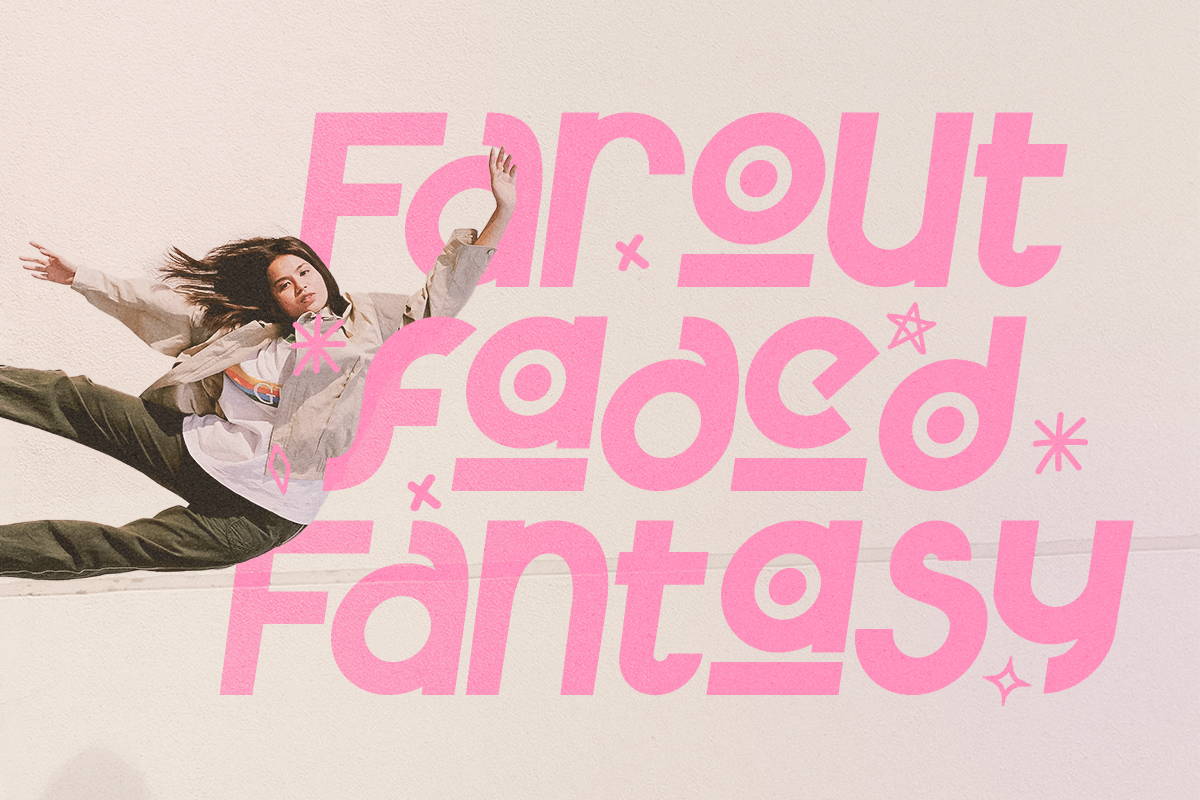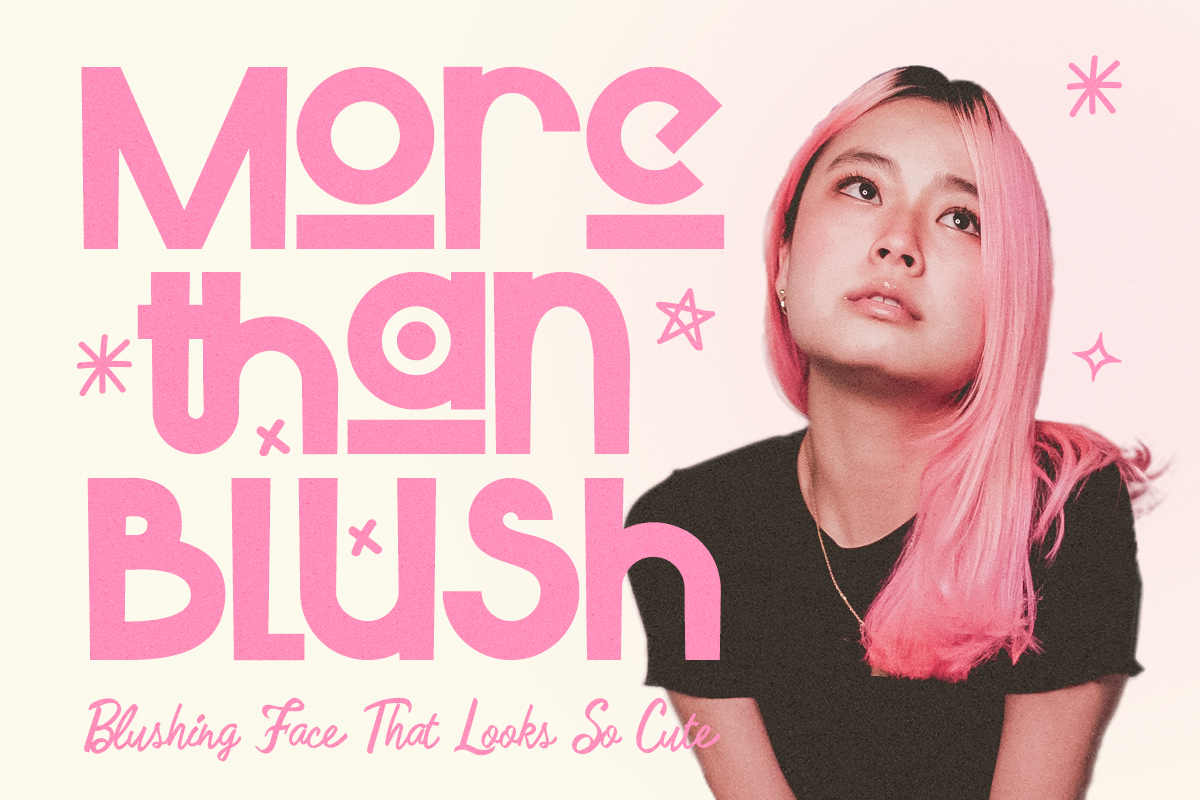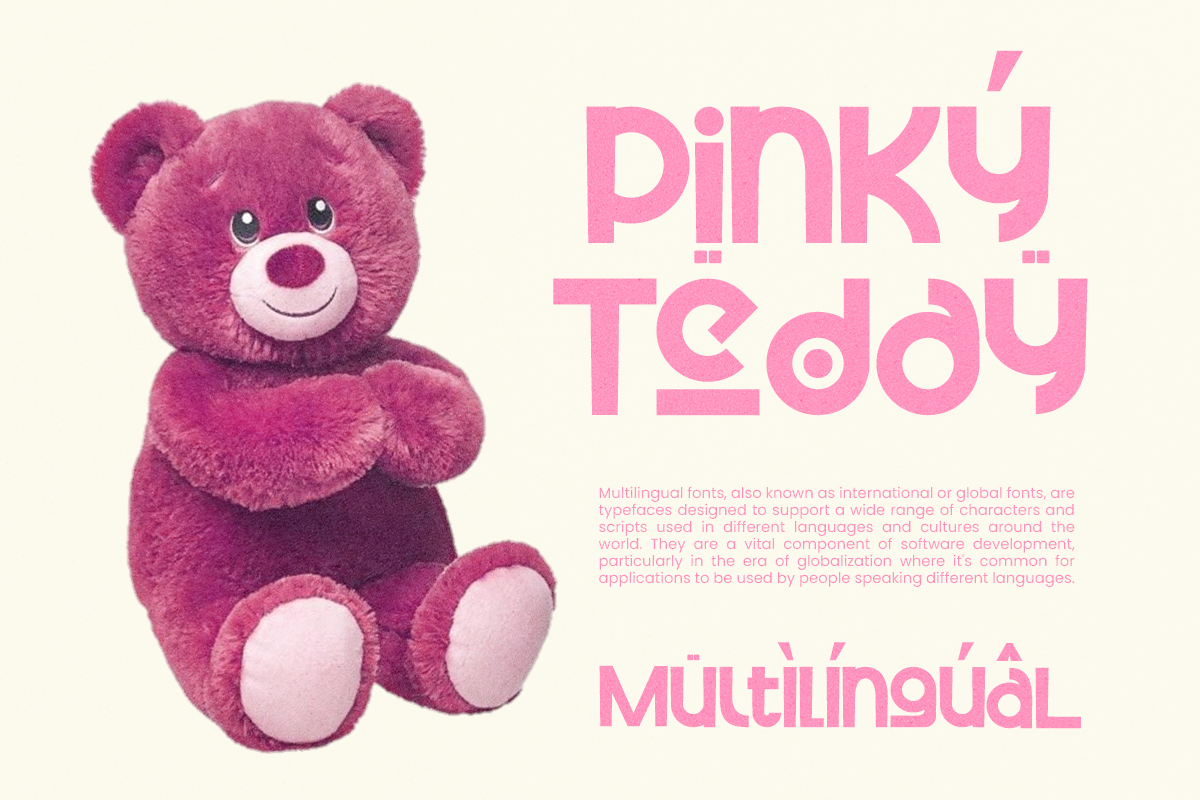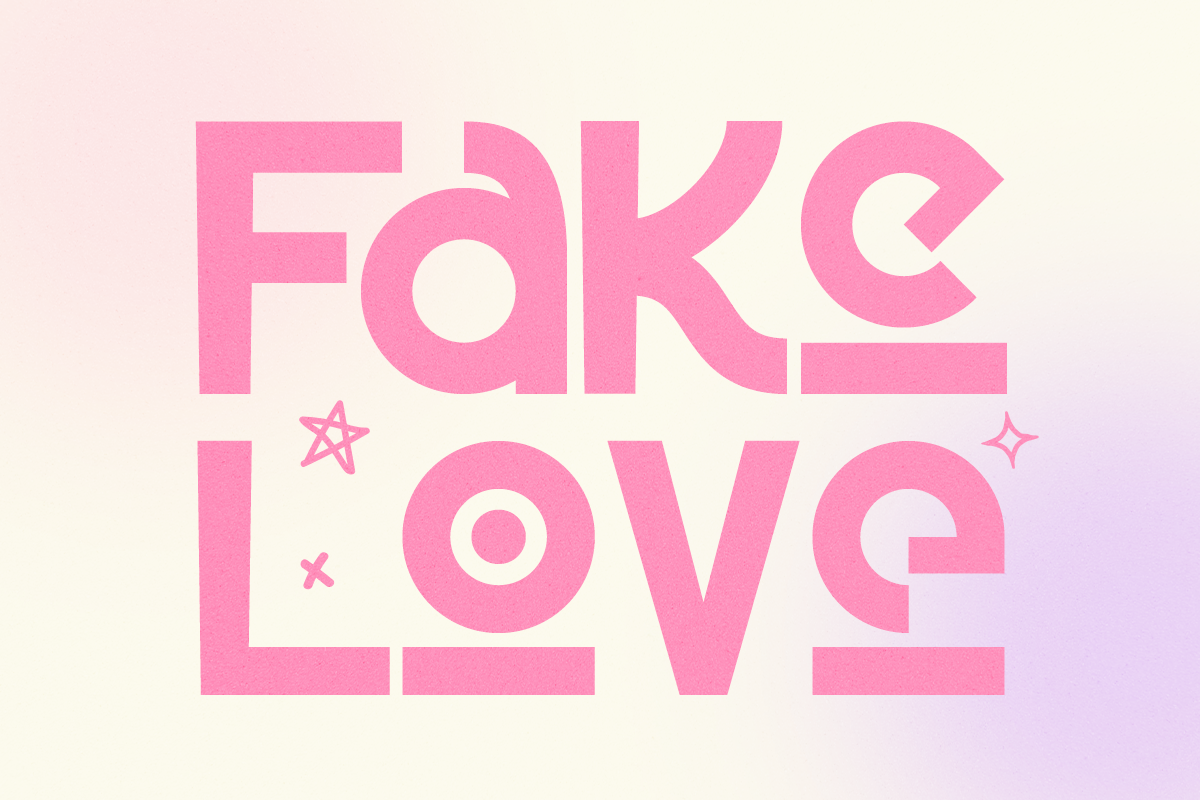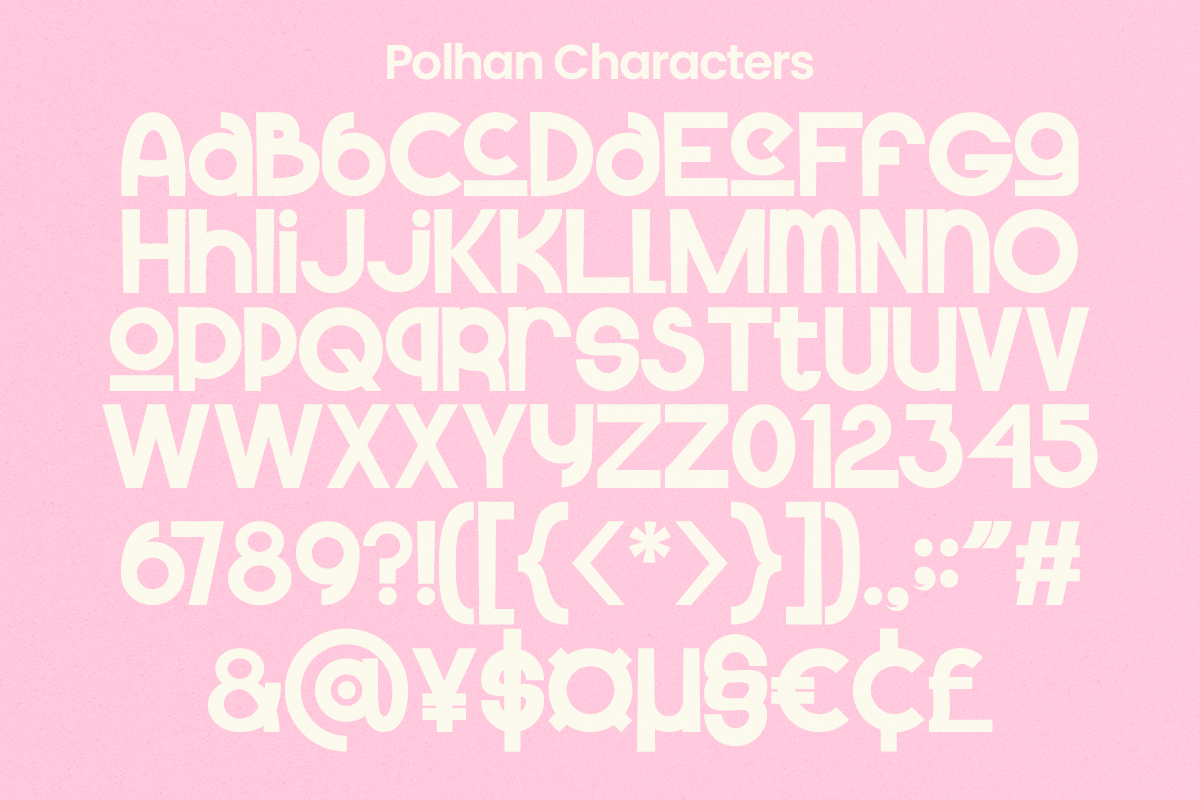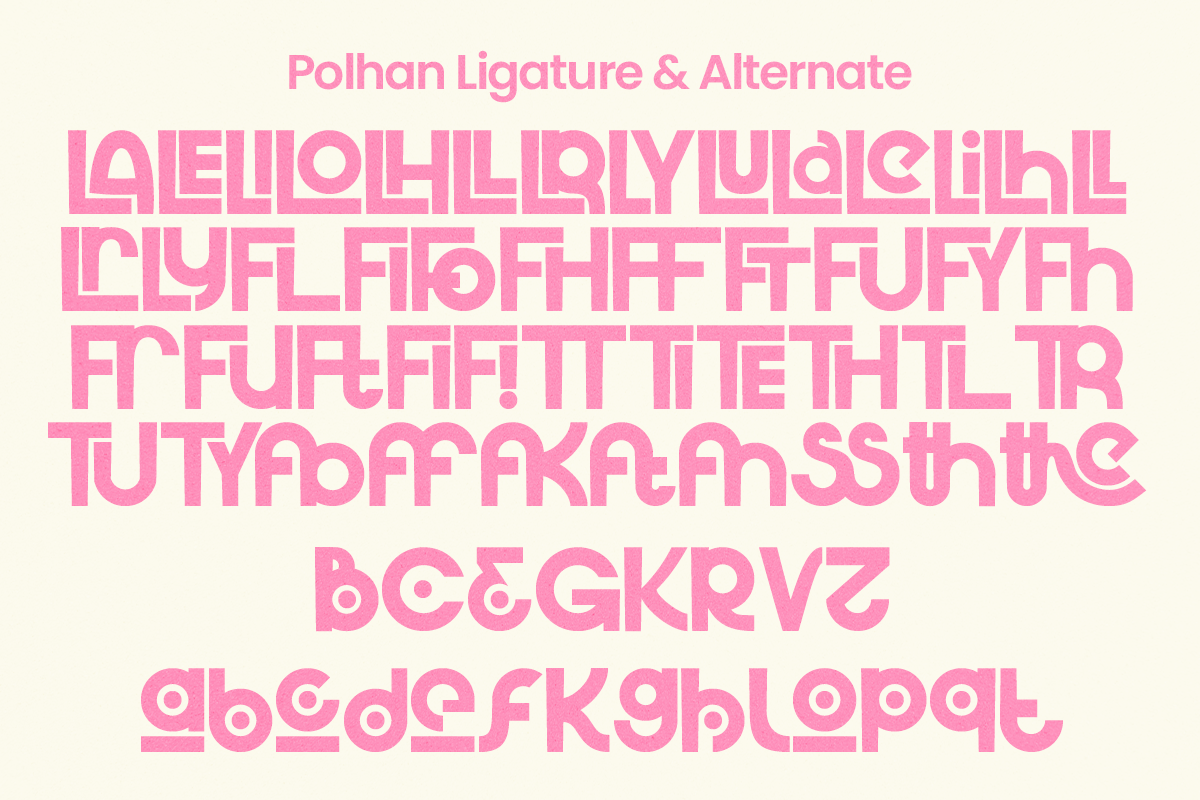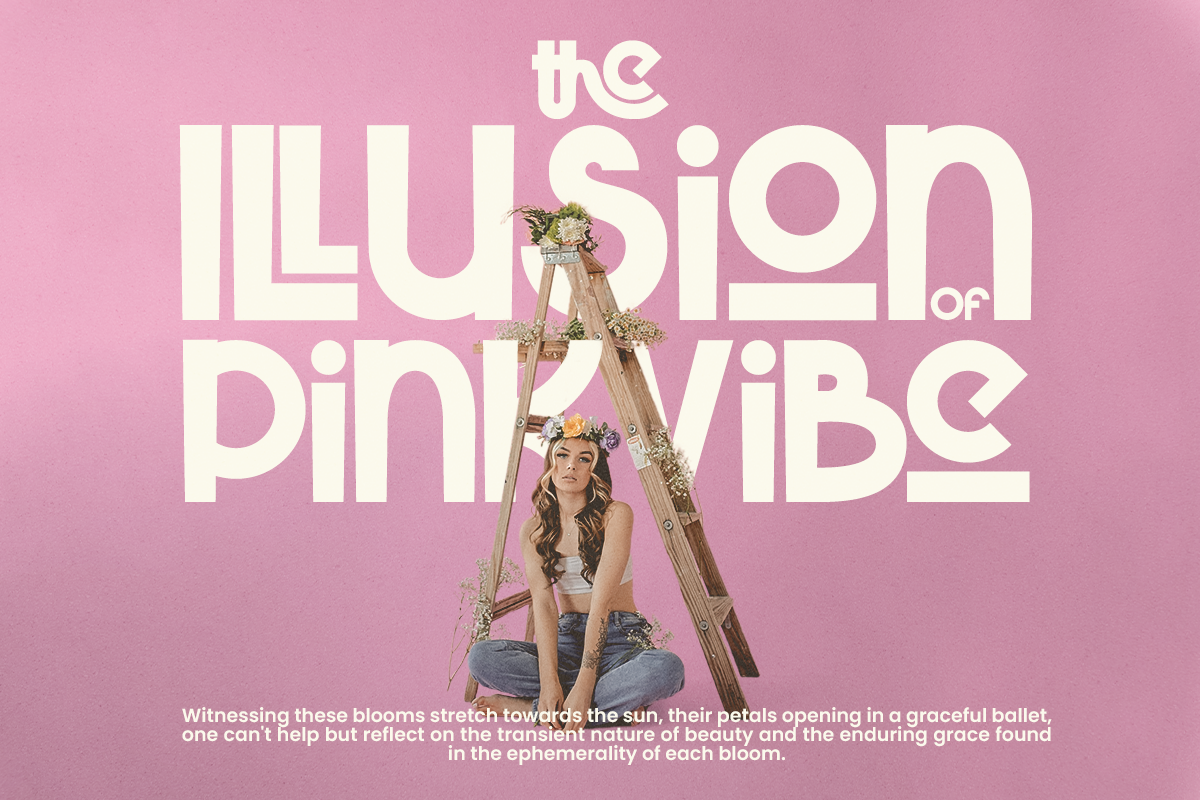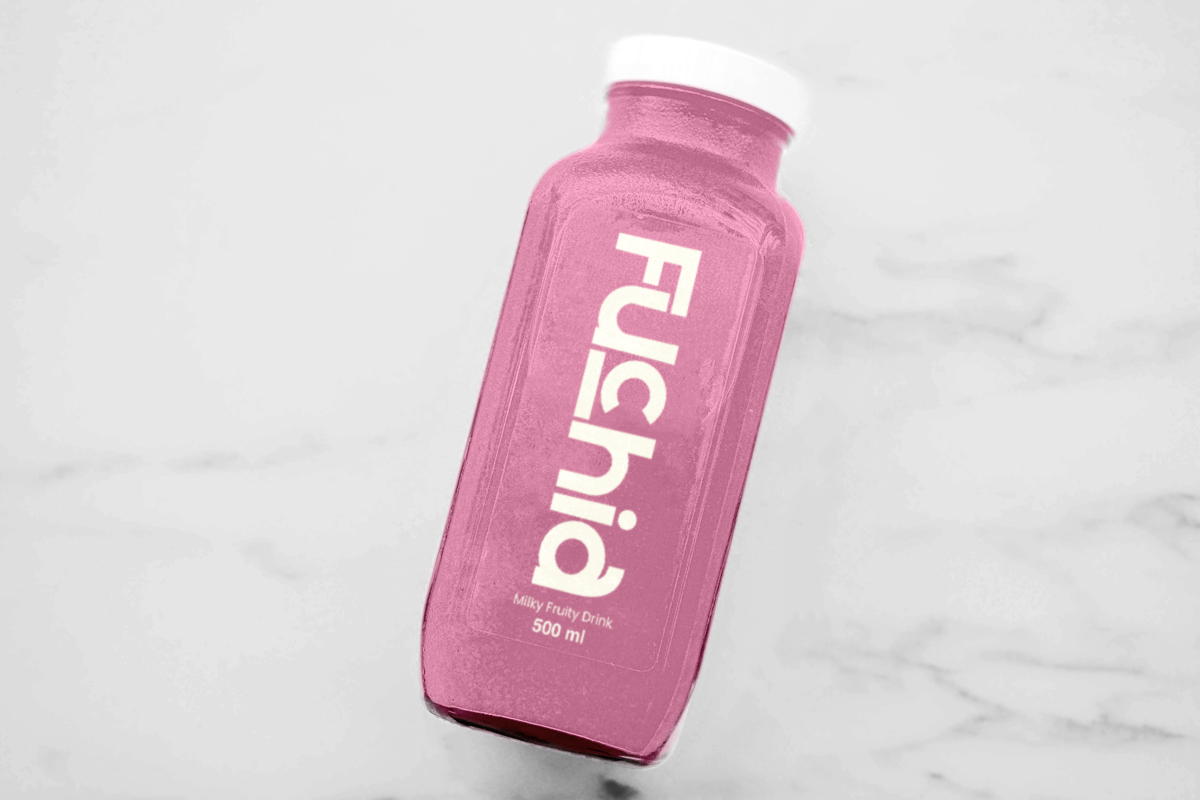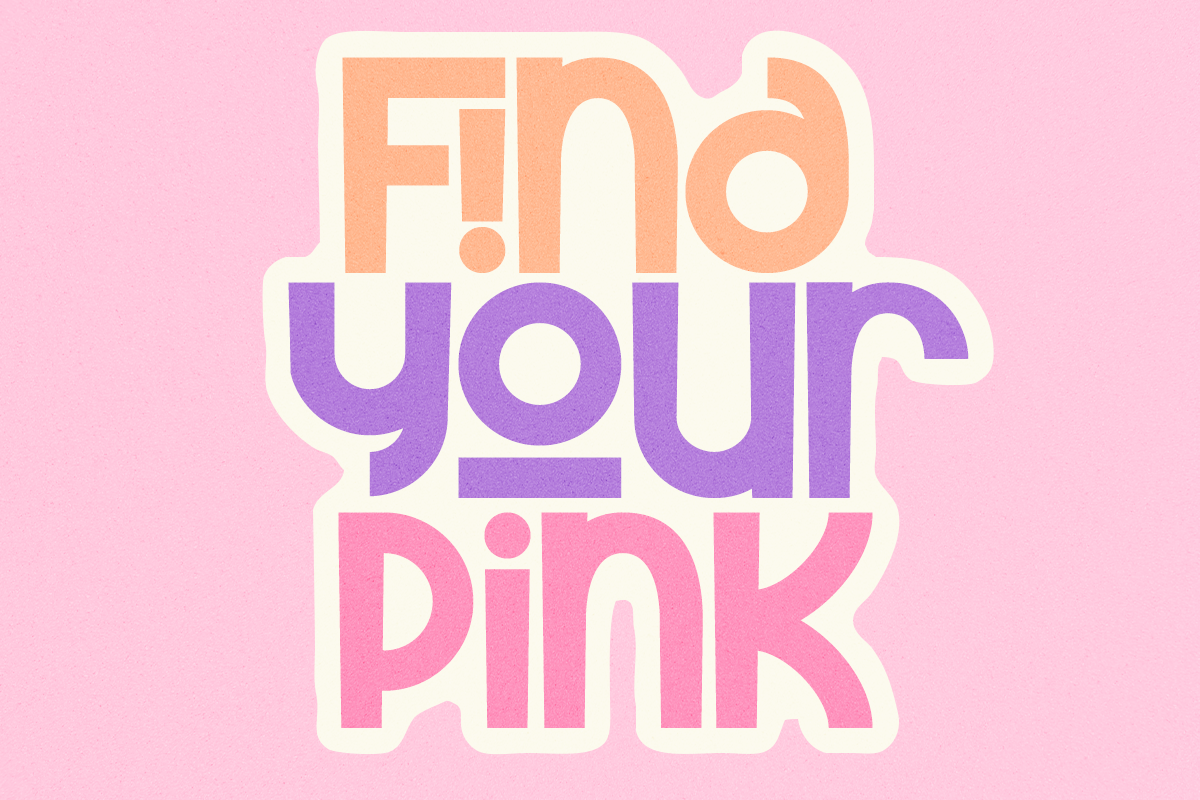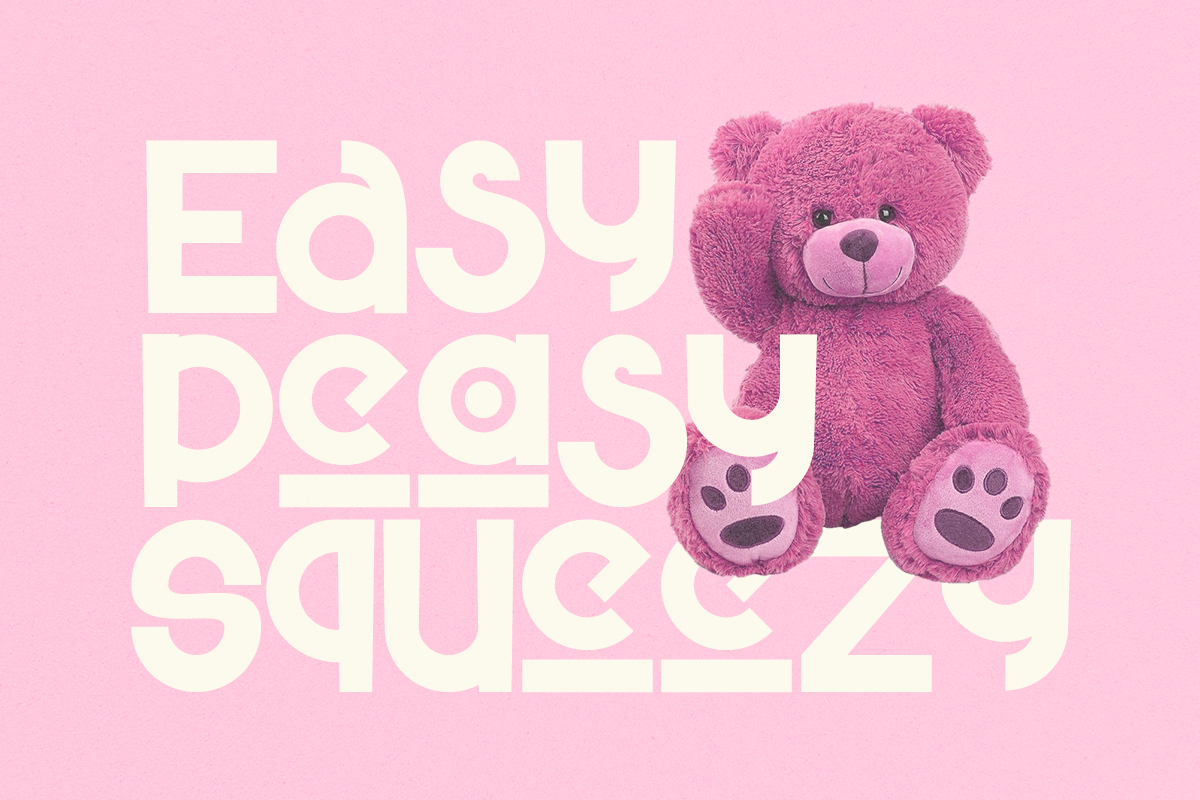
Polhan - Playfull Sans Serif
Polhan is a typeface that combines modern sans serif style with a playful touch, making it the perfect choice for various creative projects. With clean and simple letterforms yet retaining playful elements, this font brings a cheerful and dynamic vibe to every design. Suitable for titles, text, logos, and more, "Polhan" provides a refreshing and captivating touch to your projects.